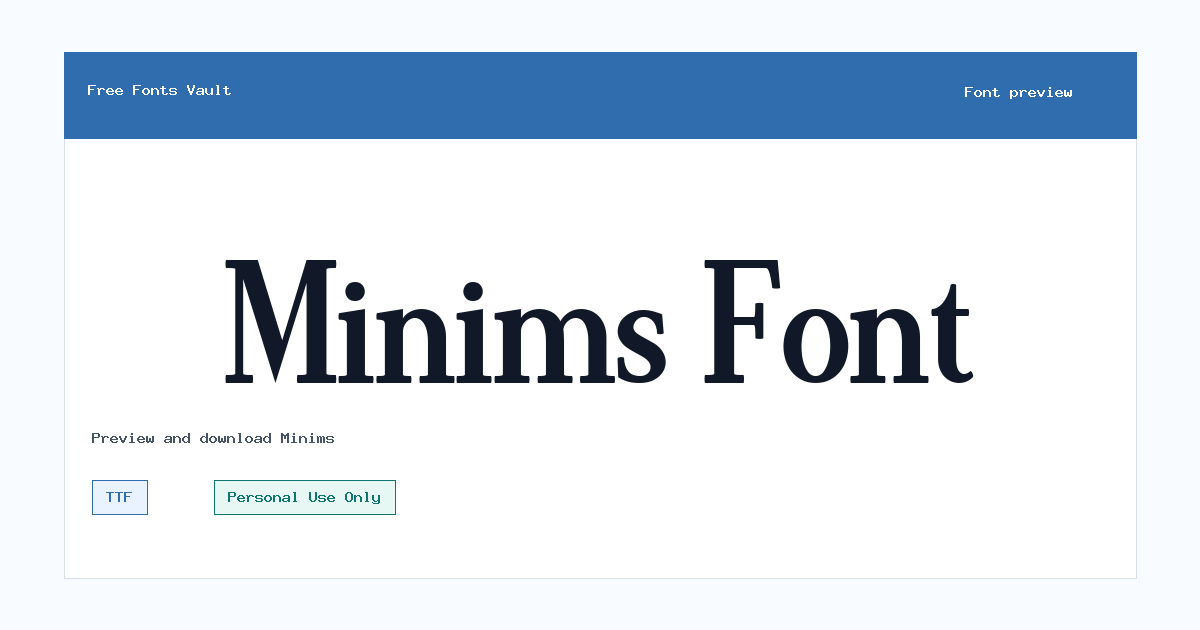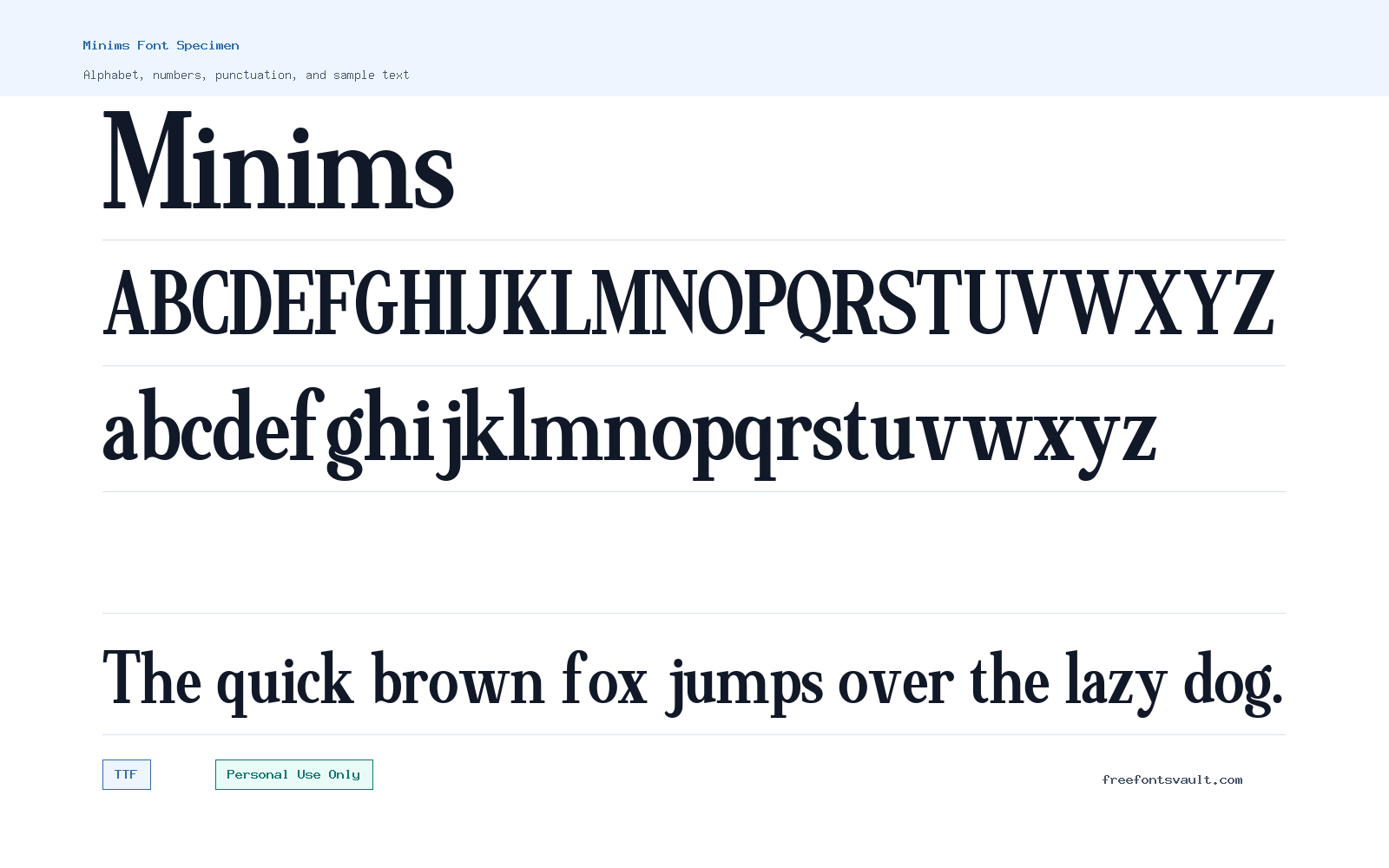
Minims
Minims font preview showing the family name
Minims Font
Minims font specimen showing alphabet, numbers, and sample text
Minims is a personal-use font family with a Regular TTF file, useful for designers who want to test a clean display style in headings, poster layouts, logo drafts, and visual mockups.
Minims keeps the setup simple: one Regular style in TTF format with normal weight and upright styling. That makes it easy to install, test, and use in common design apps. Since only one weight is listed, it is best treated as a focused display choice rather than a full typography system. Use it where the font itself can carry the visual tone, such as a title, short brand mark, social graphic, cover concept, or web hero mockup.
For logo work, start with short words and check the spacing carefully. Single-style fonts can look good in a logo draft, but they often need manual kerning, alternate layout tests, or small vector adjustments before they feel finished. Try Minims at large sizes first, then test it smaller to see where the letter shapes begin to lose clarity. If the design depends on quick reading, keep the wording short and give the letters enough breathing room.
Minims can also work for posters and web mockups when used with restraint. Test it in the preview box with the exact words you plan to use, not just sample text. Names, product titles, and short phrases reveal spacing issues faster than generic preview lines. If a phrase feels tight, increase tracking slightly or pair the font with a quieter text face for the supporting copy. Avoid using a single display font for long paragraphs unless the preview remains comfortable at body-text sizes.
Font pairing should stay simple. Use Minims for the part of the layout that needs attention, then choose a plain sans serif or a readable serif for descriptions, buttons, captions, and body text. A neutral companion font keeps the design from feeling crowded and lets Minims do its job in the headline area. If you are preparing a brand board or client concept, export a few versions with different line heights and spacing so the final choice is based on readability, not just first impression.
• Normal upright style with a single listed weight, best suited to focused display use
• Good candidate for short titles, logo drafts, poster headings, web hero text, and social graphics
• Logo concepts and wordmark drafts where the text is short and spacing can be adjusted by hand
• Poster titles, cover designs, and social media graphics that need a distinct headline font
• Web mockups, landing page hero sections, and brand presentation boards
Use Minims in short, visible text first. Test your own wording in the preview, check spacing at large and small sizes, and pair it with a simple readable font for longer copy. For logo or poster work, review the letter spacing before exporting final artwork.
Is Minims good for body text?
It is better to test Minims as a display font first. Use it for headings or short text, then pair it with a more neutral font for paragraphs if readability drops at smaller sizes.
How should I pair Minims with other fonts?
Pair it with a plain sans serif or readable serif for supporting text. Keep Minims for the headline, title, or wordmark so the layout stays clear.